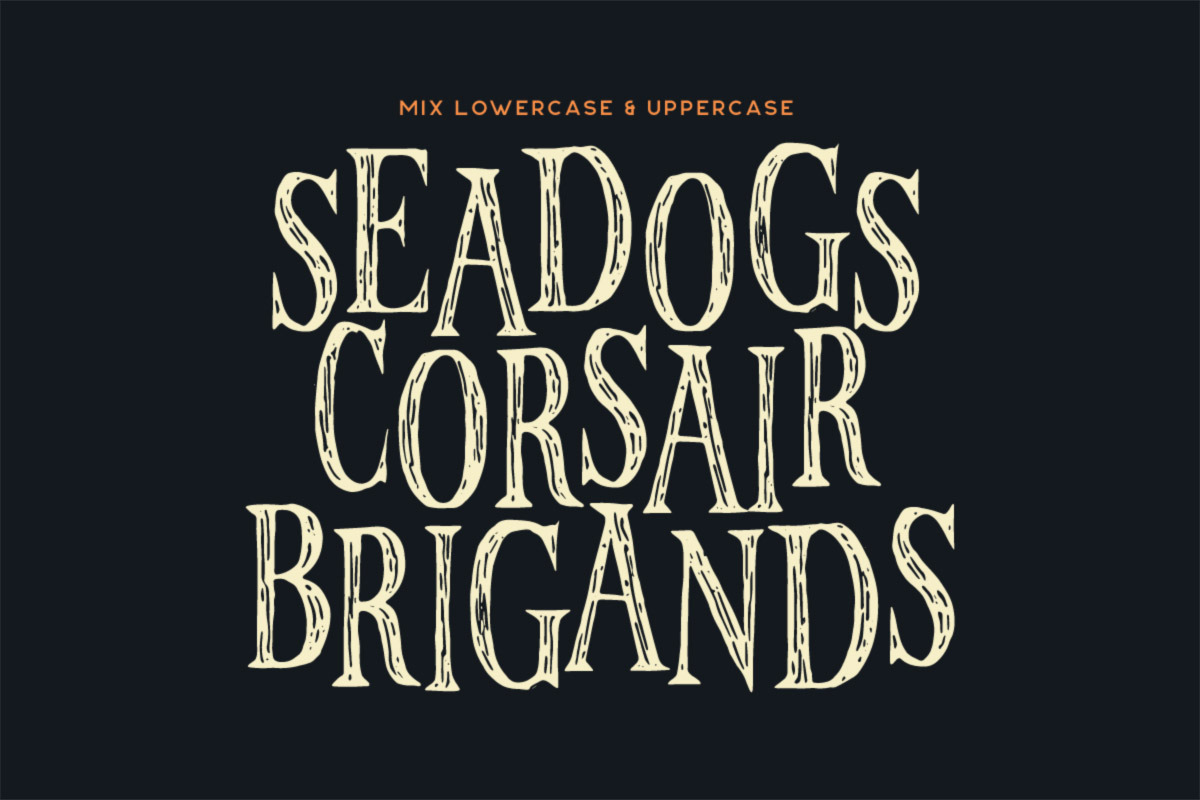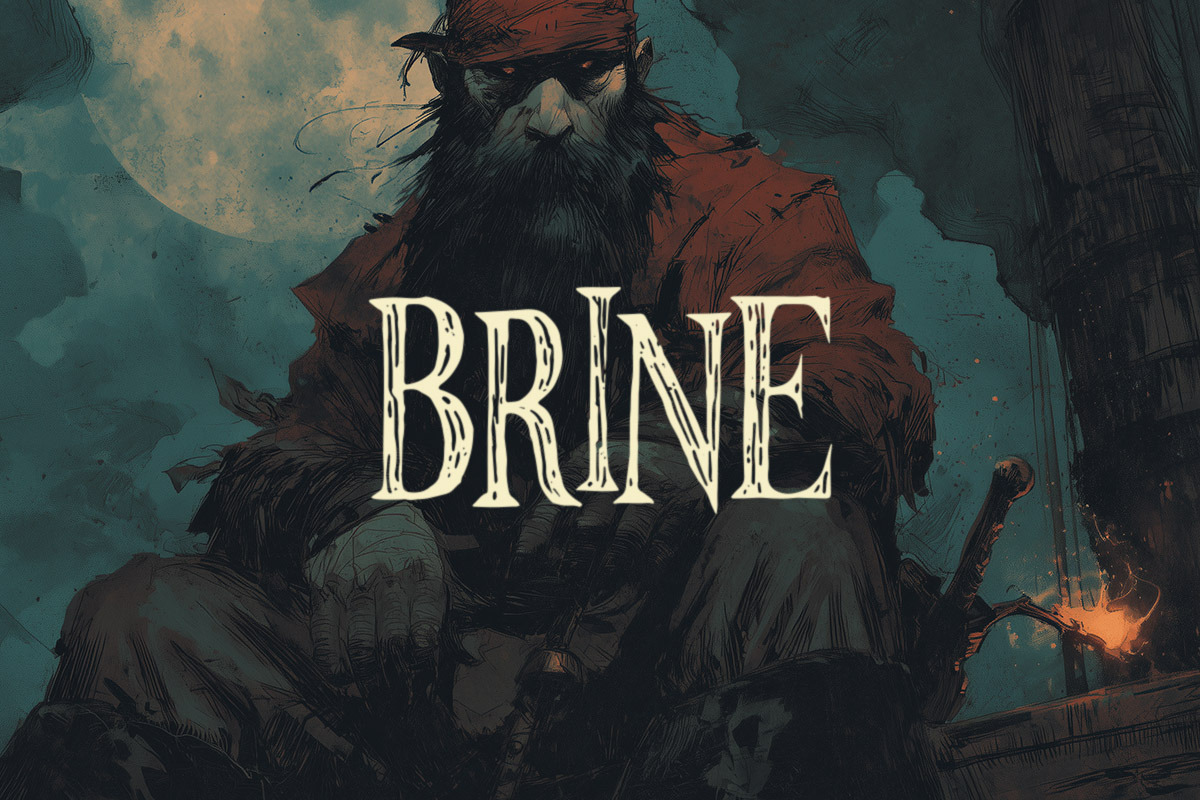
Brine Typeface
BRINE is a rugged vintage serif inspired by old sea charts, pirate lore, and weather-beaten ship logs. Its rough hand-etched texture and tall, commanding letterforms capture the grit of the open ocean—perfect for nautical branding, pirate-themed artwork, retro adventure titles, tavern signs, book covers, and historical fantasy projects. Features uppercase letters, numbers, punctuation, and the ability to mix upper/lowercase forms for authentic, irregular maritime typography.